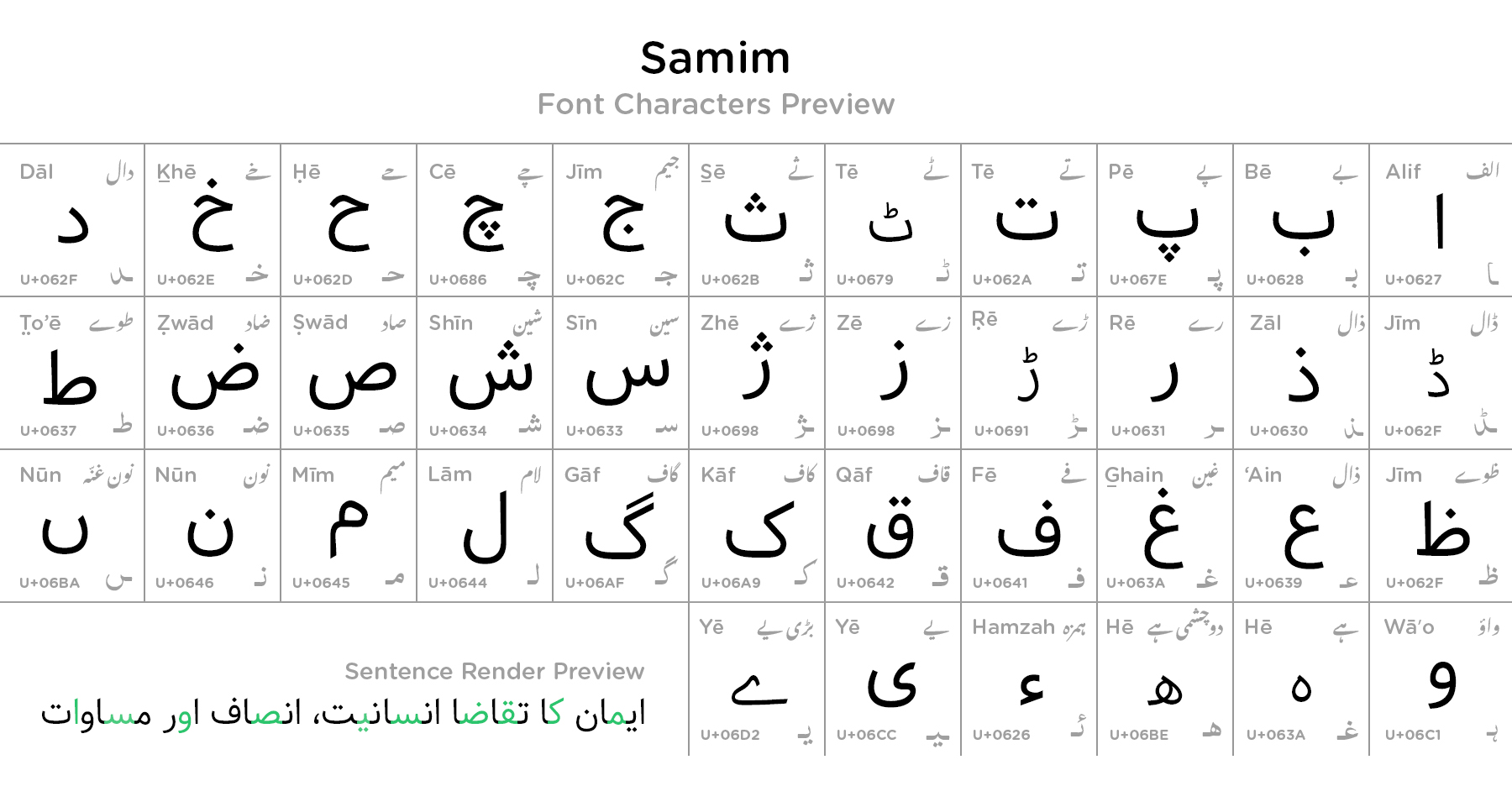
Samim Font Family
Samim is a versatile font released on October 19, 2016, by Dejavu Fonts and Bitstream. Designed by Saber Rastikerdar, this regular Arabic typeface has consistent thickness throughout the letters. With subtle roundness and solid strokes, the font delivers an impactful yet soft appearance. The font offers 523 characters and symbols with a glyph count of 519, making it accessible for various design needs across several platforms. Moreover, it provides extensive language support, including Arabic, Latin, Greek, Urdu, and Persian, making it more diverse for multilingual typography projects. The font weight is normal, and the width is medium, ensuring readability across various design applications. Moreover, it offers 2 different weights, which are as follow:
Inspired by the classical calligraphic script Naskh, the font offers modernity with the flair of heritage. It has soft and rounded corners and two-tipped wide terminals. The monospacing and symmetrical appearance of Samim allows it to be used for writing extensive passages. It offers high screen legibility with its unembellished look and uncluttered letterforms. This font is widely used in applications like Arabic branding, logos, posters, formal writing, and more. Furthermore, its Unicode blocks cover Basic Latin, Latin-1 Supplement, Spacing Modifier Letters, Arabic, General Punctuation, Mathematical Operators, and more, ensuring compatibility with different platforms and applications.